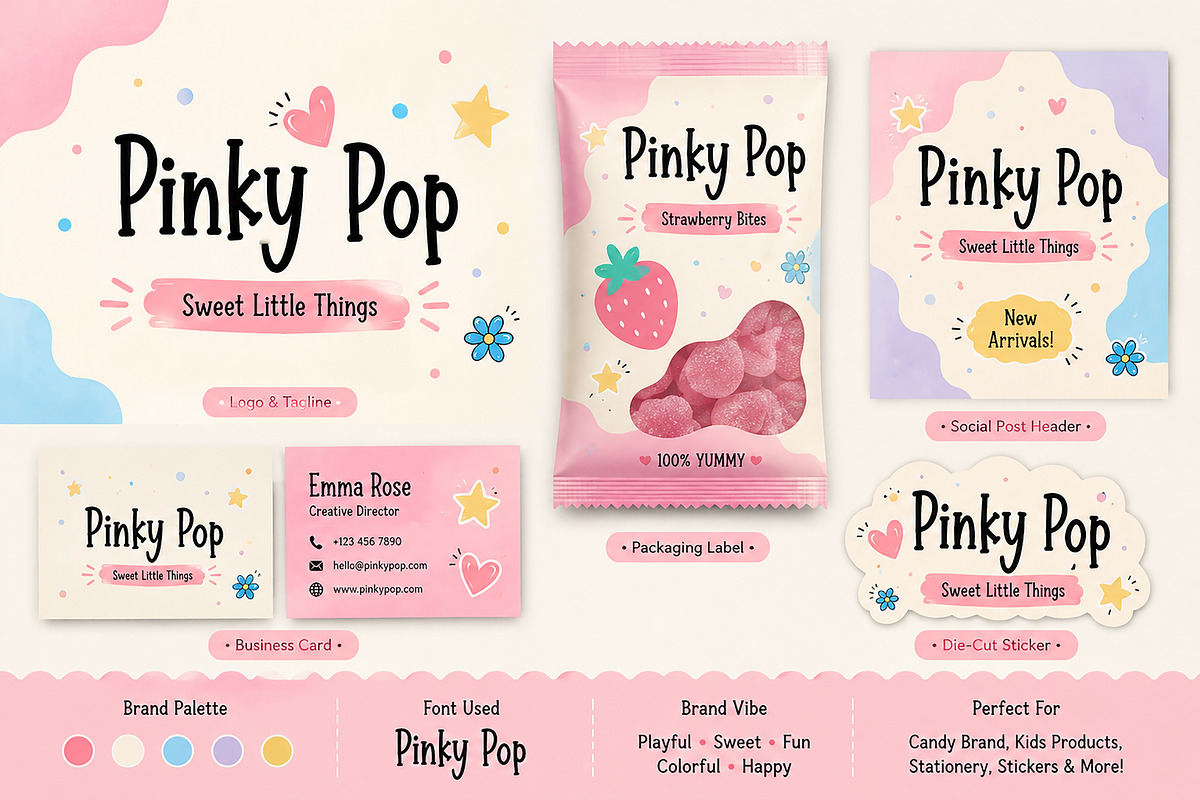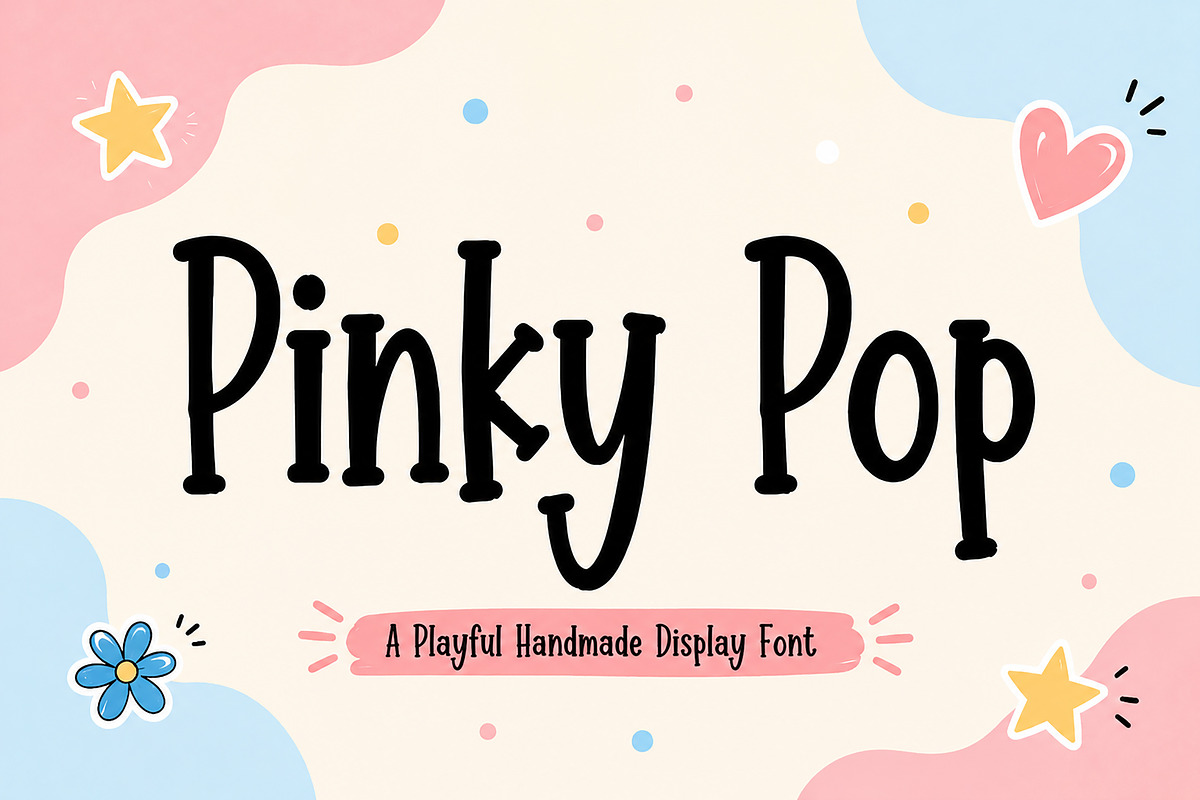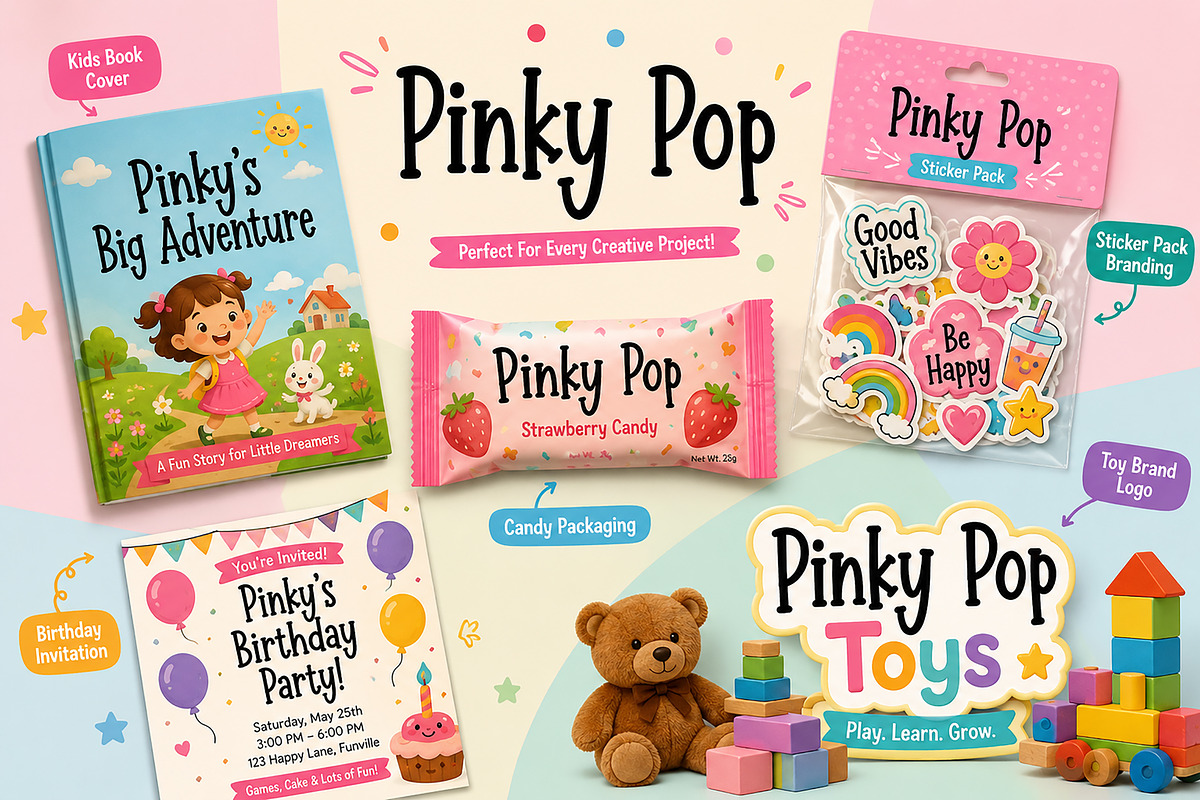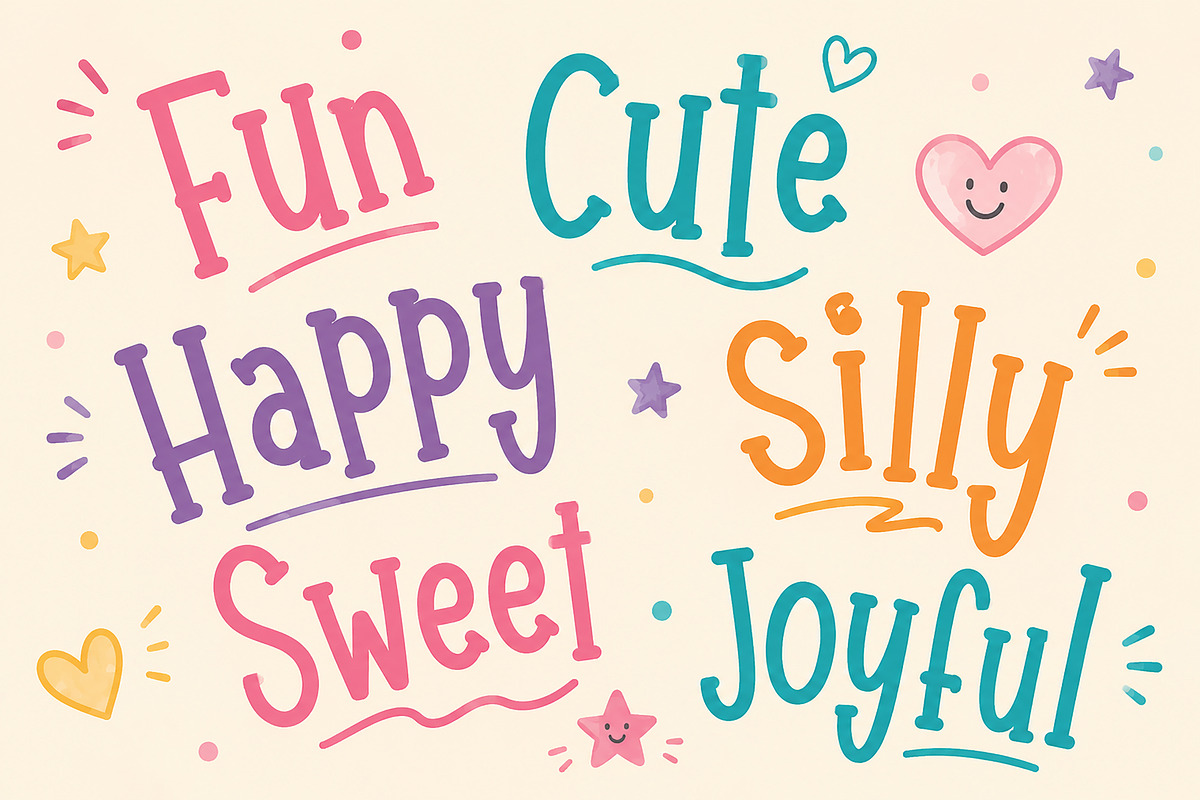
Pinky Pop
Pinky Pop is a playful handmade display font bursting with charm, creativity, and cheerful personality. Designed with quirky curves, uneven strokes, and a fun organic feel, this font brings a joyful touch to any project.
Perfect for kids-related designs, sweet branding, playful packaging, and creative titles, Pinky Pop adds a warm handmade vibe that feels friendly, unique, and full of life.
Its whimsical letterforms make it ideal for eye-catching headlines, logos, invitations, product packaging, stickers, and social media designs.
Whether you're creating for children’s products, candy brands, toy packaging, or fun editorial layouts, Pinky Pop helps your design stand out with personality and sweetness.
• Kids Book Covers
• Toy Branding
• Candy Packaging
• Birthday Invitations
• Stickers & Labels
• Social Media Graphics
• Product Packaging
• Logo Design
• Posters & Headlines
• Creative Merchandising
• Uppercase & Lowercase
• Numbers & Punctuation
• Ligatures
• Stylistic Alternates
• PUA Encoded
Bring fun, sweetness, and playful energy into your next creative project with Pinky Pop.
A playful handmade display font with quirky curves, fun personality, and sweet charm — perfect for kids branding, packaging, stickers, and creative titles.